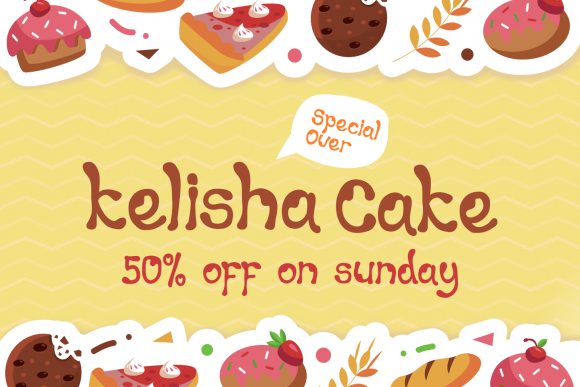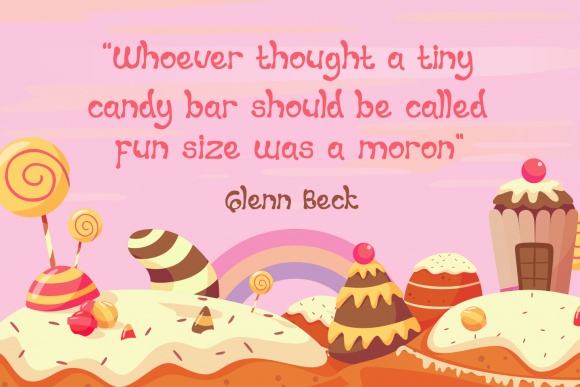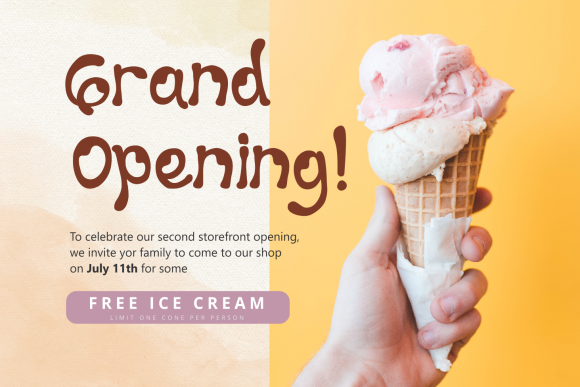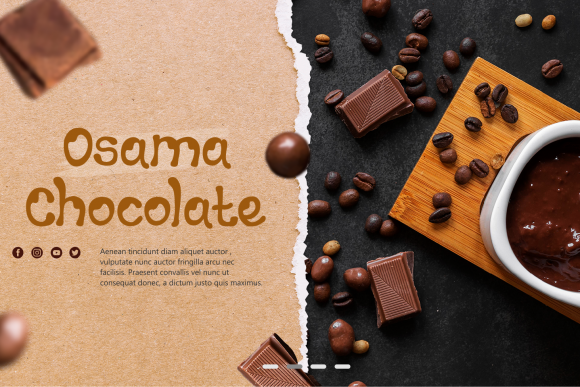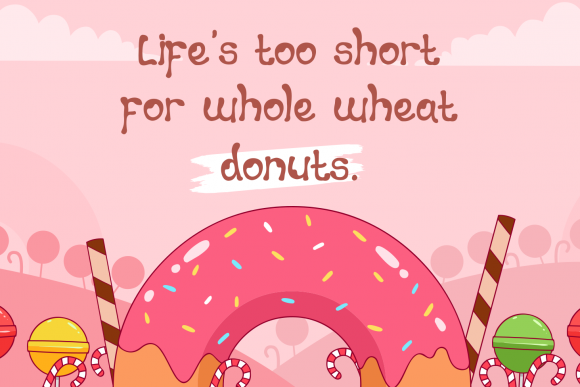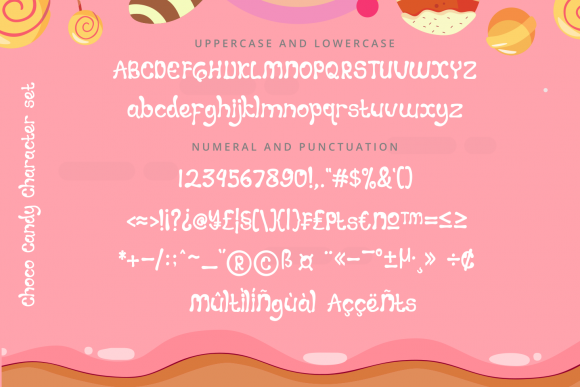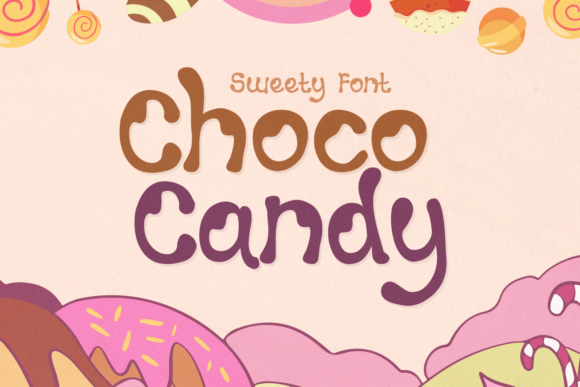
Introducing Choco Candy Font: The Sweetest Addition to Your Design Collection
Are you tired of using the same old fonts in your designs? Look no further! Choco Candy Font is here to add a touch of playfulness and authenticity to your projects. This cute and fun display font is perfect for children’s activities, school projects, and any design that needs a dash of whimsy.
What Makes Choco Candy Font So Special?
Choco Candy Font embodies the perfect blend of playfulness and authenticity. Its chunky, lettered design makes it a standout in any project, adding a fun and lively touch that’s sure to capture the attention of your audience. Whether you’re a designer, crafter, or educator, this font is sure to become a favorite in your collection.
Perfect for Children’s Activities and School Projects
Choco Candy Font is specifically designed with children in mind. Its playful and fun design makes it perfect for:
- Children’s party invitations and decorations
- School project posters and presentations
- Crafting and DIY project labels and signs
- Kids’ menu boards and restaurant signage
This font is sure to delight kids and adults alike with its sweet and charming design.
Adding a Touch of Whimsy to Your Designs
Choco Candy Font is more than just a font – it’s a design statement. When you add this font to your designs, you’ll instantly notice a transformation. Your projects will come alive with a playful and energetic vibe that’s sure to capture the attention of your audience.
Use Choco Candy Font to:
- Create eye-catching titles and headings
- Add a playful touch to your branding and marketing materials
- Design fun and engaging social media graphics
- Make your craft and DIY projects stand out
Why Choose Choco Candy Font?
With so many fonts to choose from, why should you choose Choco Candy Font? Here are just a few reasons:
- Unique Design: Choco Candy Font has a one-of-a-kind design that’s sure to make your projects stand out.
- Playful and Fun: This font embodies the perfect blend of playfulness and authenticity, making it perfect for projects that need a touch of whimsy.
- Easy to Read: Despite its chunky design, Choco Candy Font is easy to read, making it perfect for titles, headings, and short paragraphs.
- Versatile: Use Choco Candy Font in a variety of projects, from children’s activities to adult designs.
Tips for Using Choco Candy Font
Here are a few tips for getting the most out of Choco Candy Font:
- Use it as a Title Font: Choco Candy Font is perfect for titles and headings. Use it to create eye-catching titles that grab attention.
- Pair it with Other Fonts: Experiment with pairing Choco Candy Font with other fonts to create a unique and interesting design.
- Use it in Combination with Images: Choco Candy Font looks great when paired with images, especially those with a playful or whimsical theme.
Choco Candy Font is a fun and playful display font that’s perfect for adding a touch of whimsy to your designs. With its chunky, lettered design and easy-to-read style, it’s perfect for children’s activities, school projects, and any design that needs a dash of playfulness. So why wait? Add Choco Candy Font to your design collection today and start creating sweet and charming designs that will delight your audience!